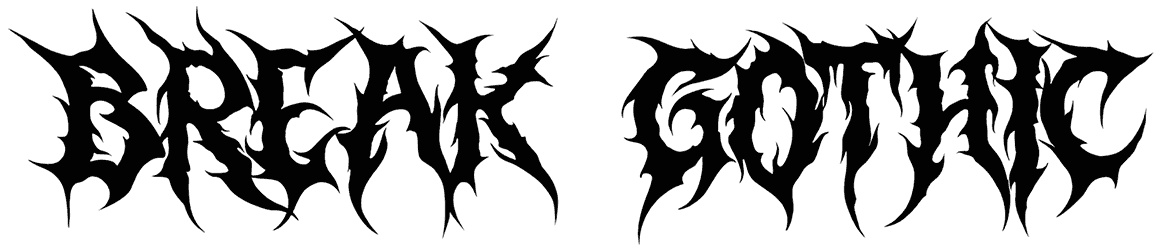
Break Gothic Font
Using Break Gothic won’t just suck the life out of your lettering. That’s pretty routine for a death font with such a scary look. The real fun begins when it makes your words seem so badass and dangerous with the help of their spiky characters.
If you want that dark gothic flair boosting your lettering too, don’t think twice about adding this cool death metal font to your apparel, music covers, or picking it as a tattoo font for artists.